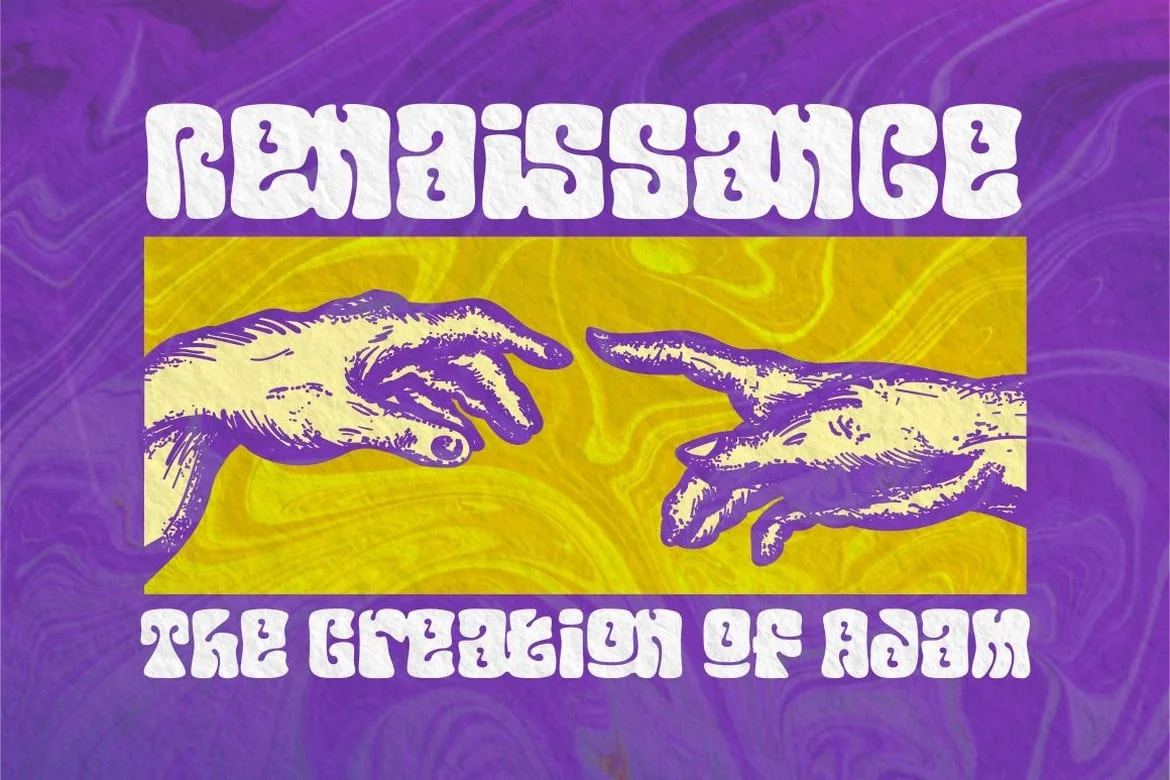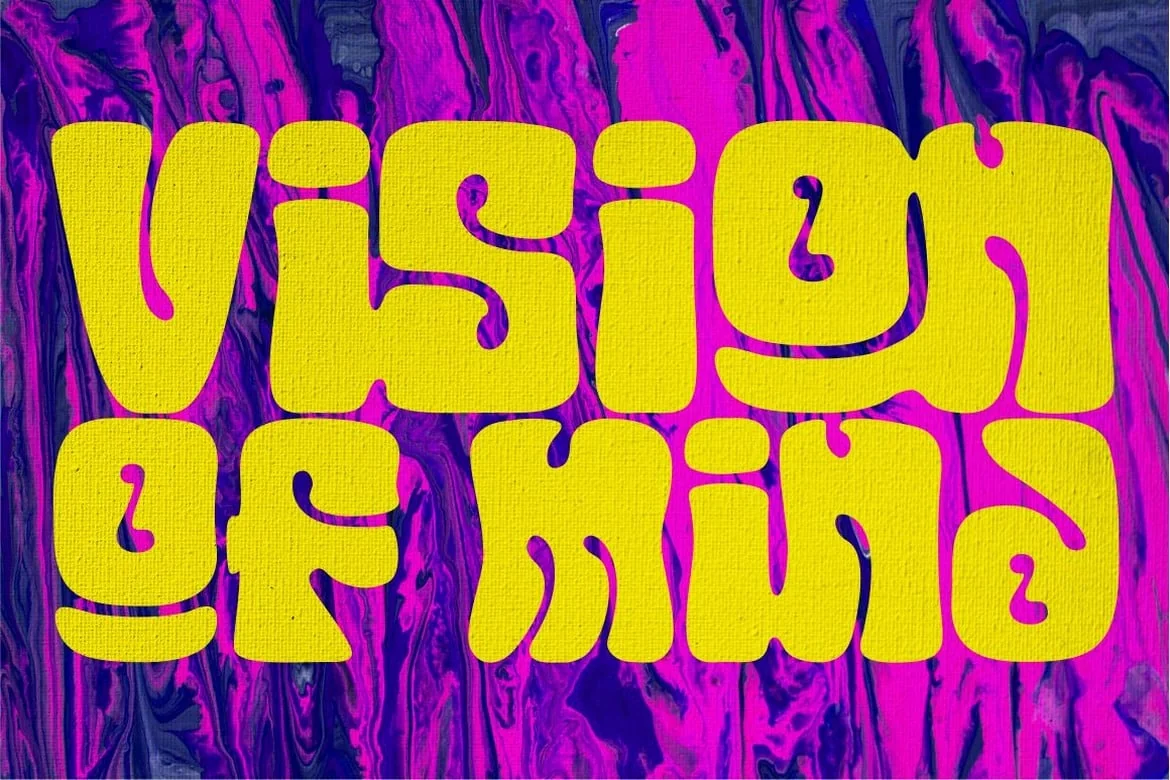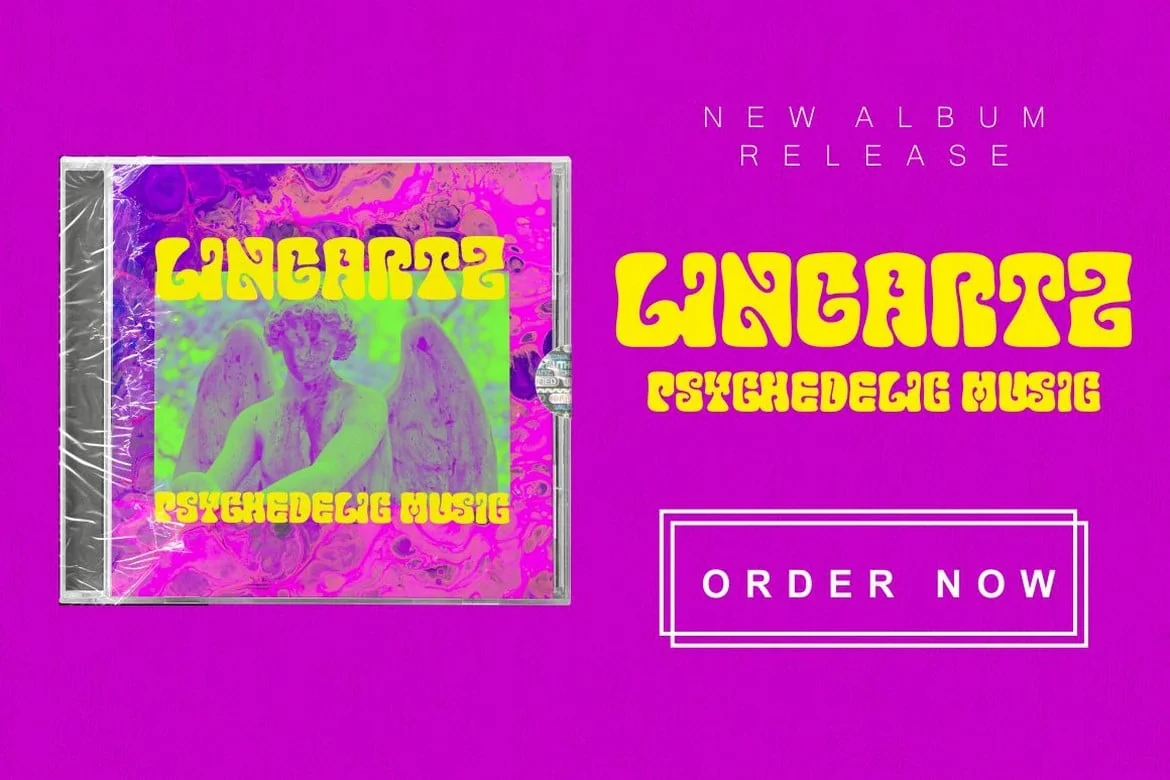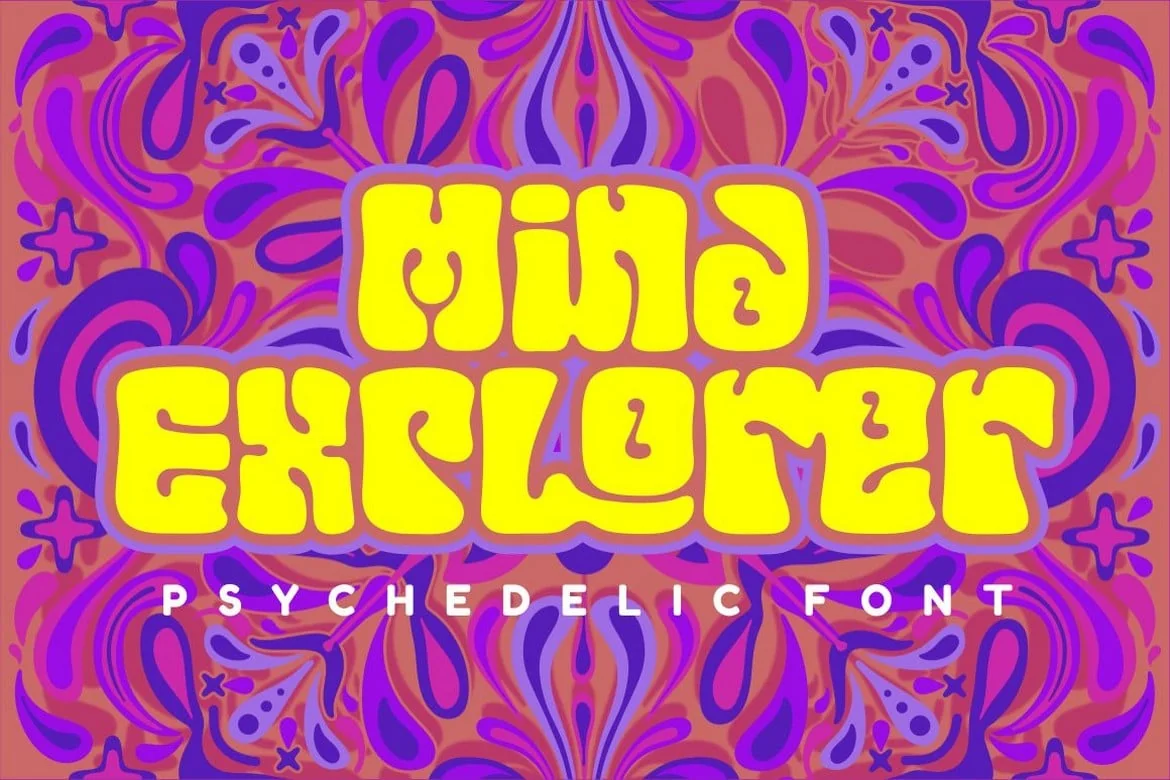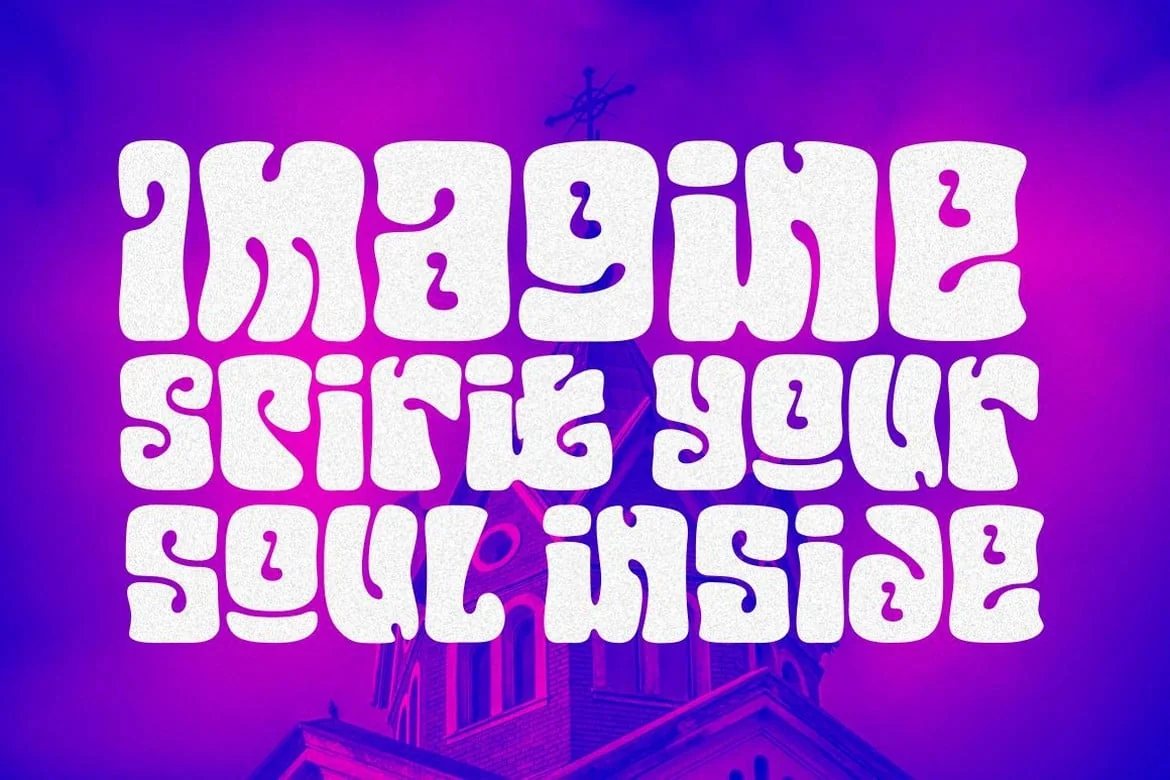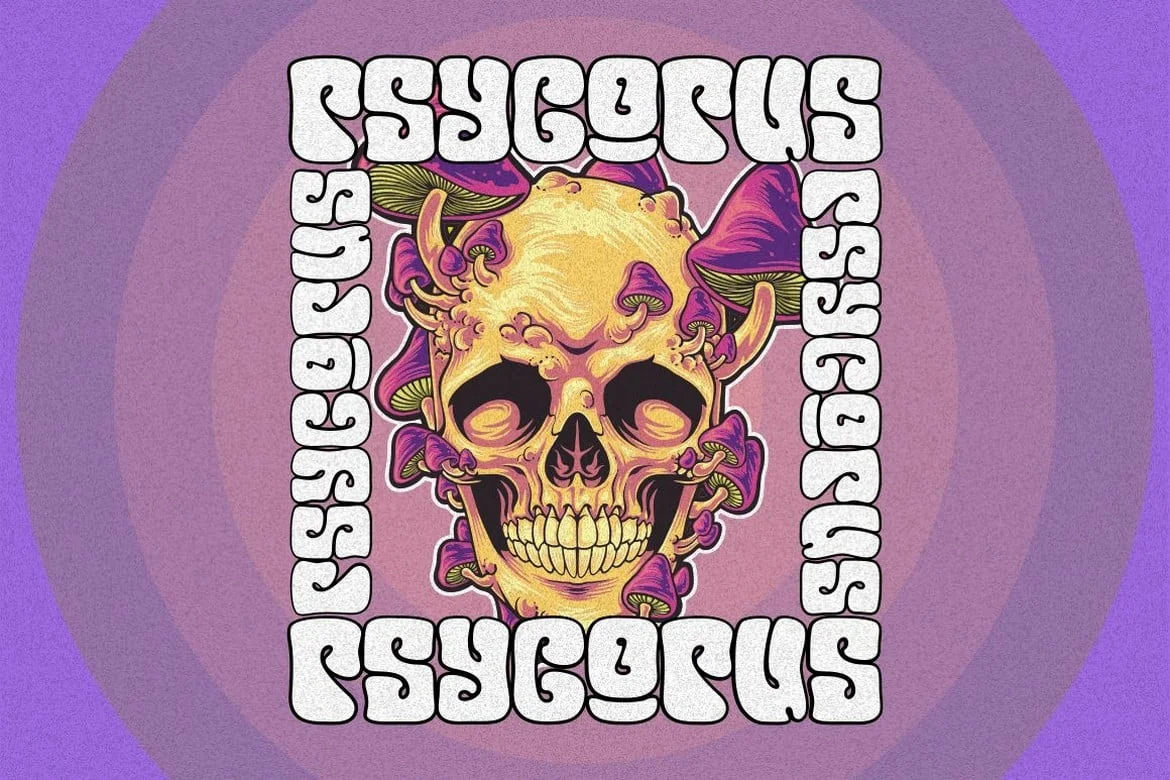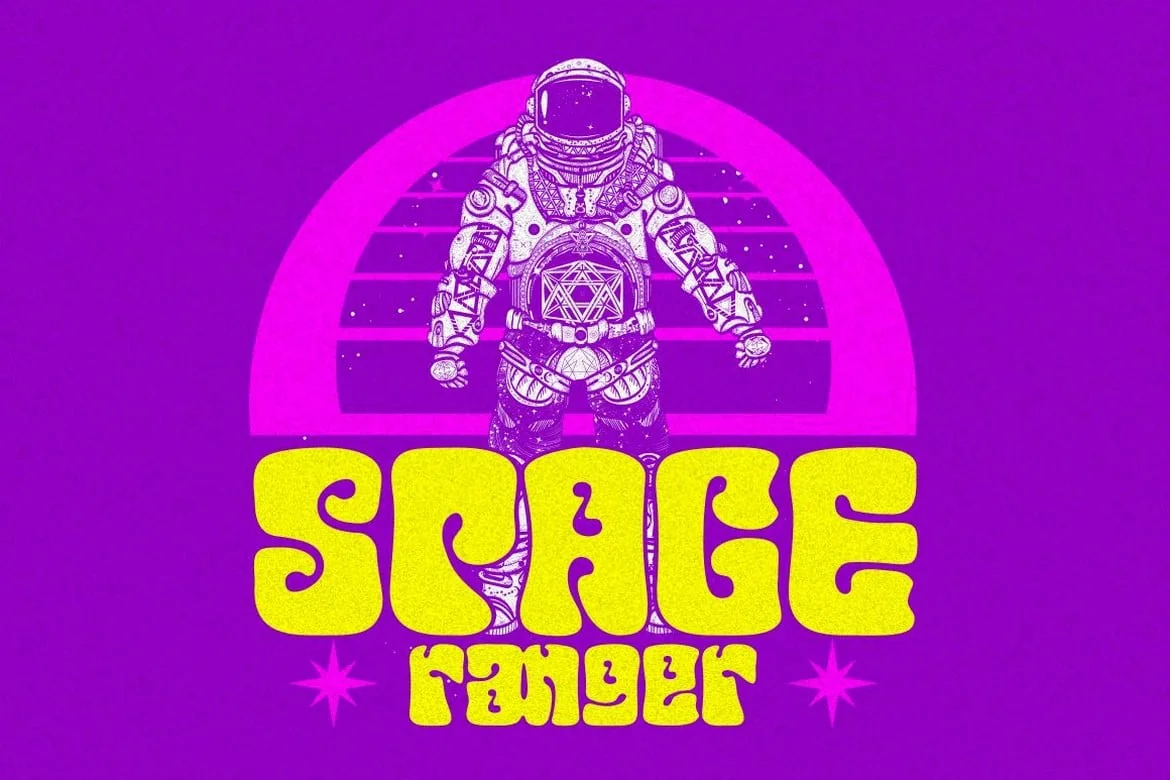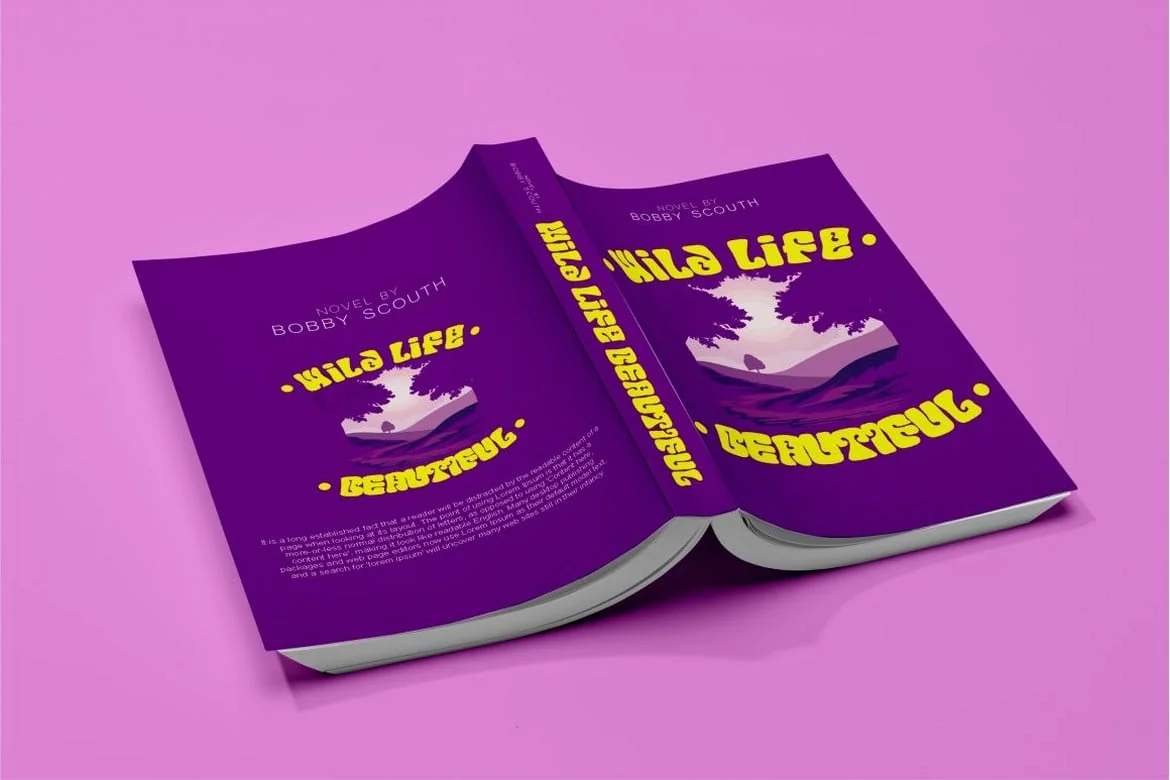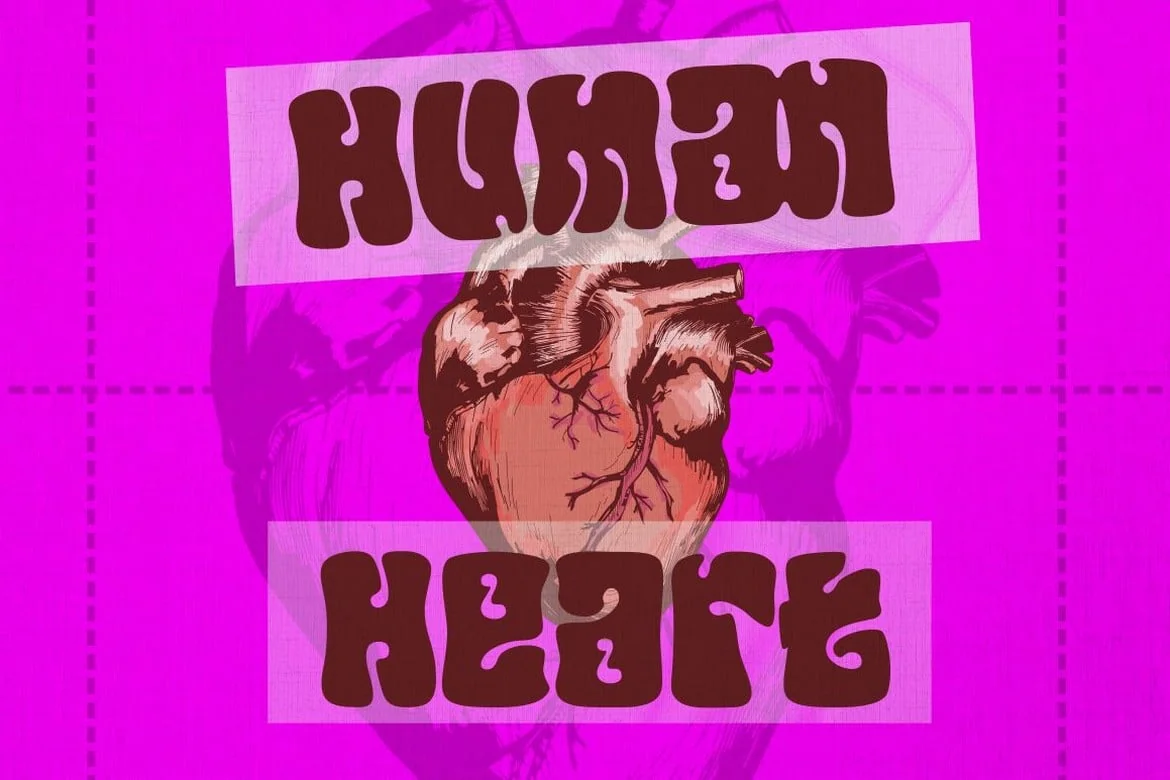
Mind Explorer – Psychedelic Font
Mind Explorer – Psychedelic Font. Mind Explorer is a psychedelic style font. This font is inspired by vintage albums and posters from 1960s music bands. The classic, fun and groovy impression is very visible. But in this font I combine several variations such as the ligature. It makes this font even more unique and different. Euphoria Party is also great for any kind of display purpose from album, cover, poster, label, signage, quote, logo, greeting card, logotype and many more. This font is also support multi language.